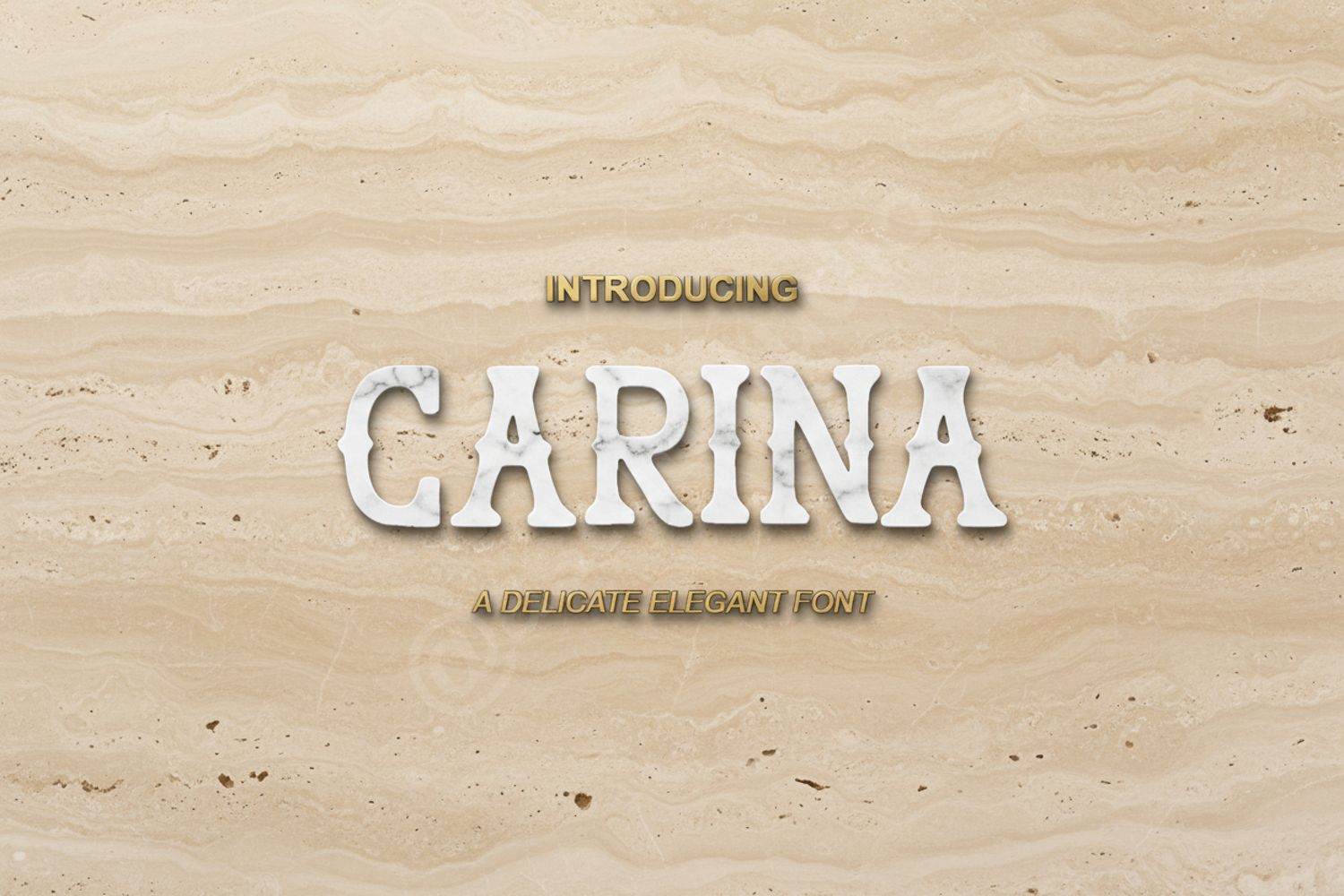
Carina - Elegant Modern Serif Typeface
Carina
Carina is a premium serif font that embodies timeless elegance and modern sophistication. Designed with precision and balanced proportions, this typeface is crafted to bring a touch of luxury to your creative projects. Its clean lines and refined aesthetic make it a versatile addition to any designer's toolkit.
- Luxury Branding and Visual Identity
- Sophisticated Wedding Invitations and Stationery
- High-end Editorial Layouts and Magazine Design
- Professional Logo Design and Wordmarks
- Elegant Social Media Graphics and Quotes
- Product Packaging and Labels